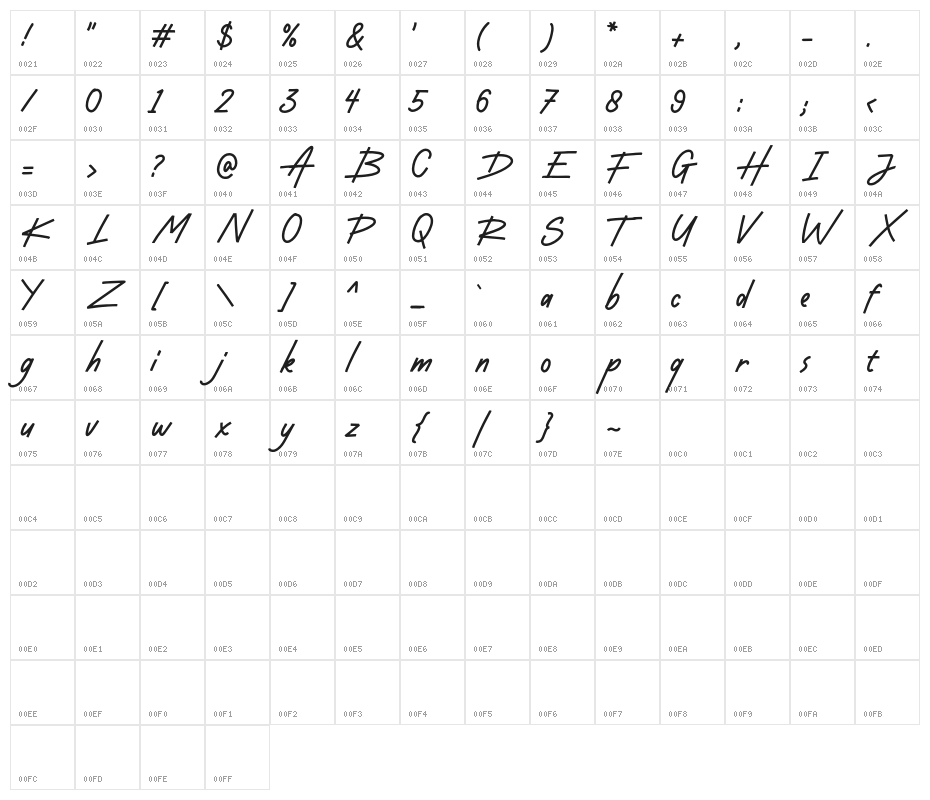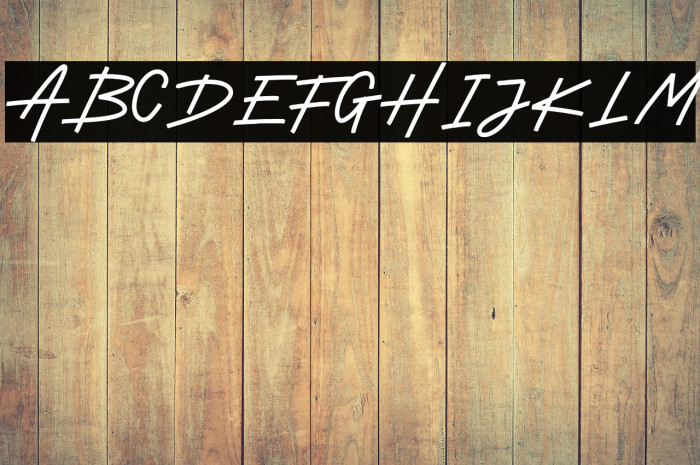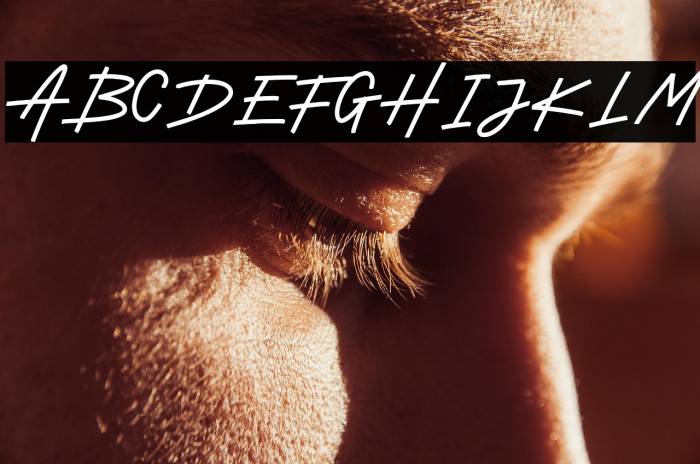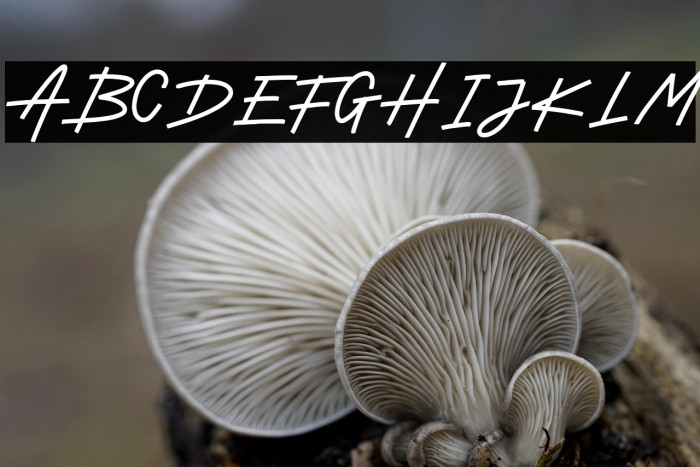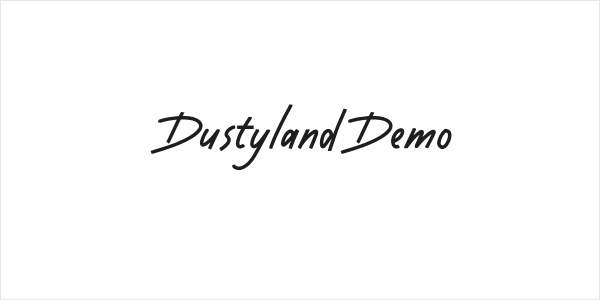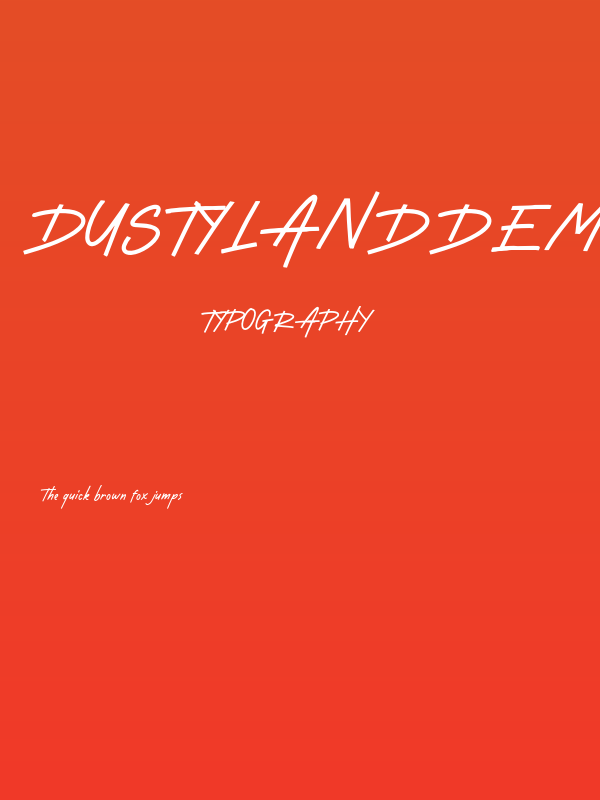
DustylandDemo Font
DustylandDemo Description
A handwritten script font with a casual and flowing style, featuring slightly slanted characters and smooth curves.
| Overall Style | Casual, Handwritten |
| Use Case | Logos, Invitations, Personal notes |
| Proposed Projects | Invitations, greeting cards, personal branding. |